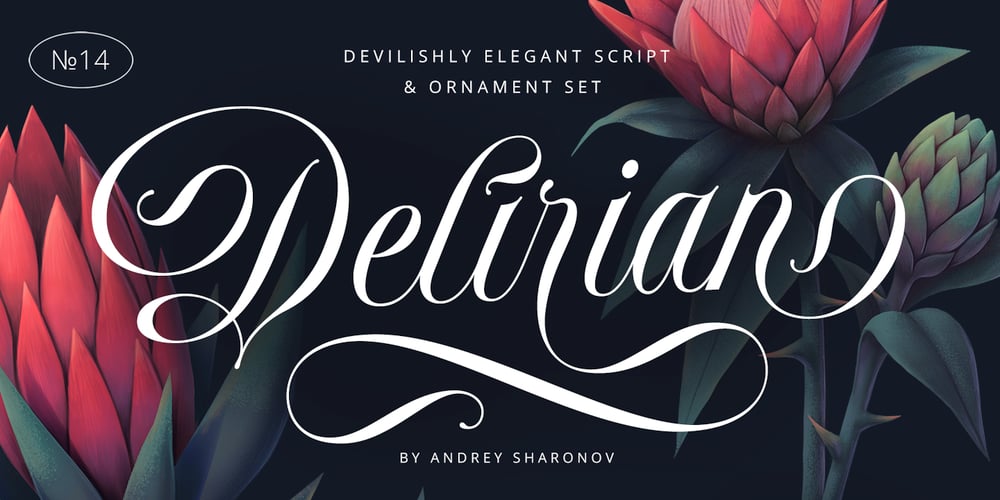
Delirian Font Family was designed by Andrey Sharonov and published by Andrey Sharonov. Delirian contains 2 styles and family package options. Delirian Script & OrnamentsDelirian is elegant script with contemporary mood and perfect forms, inspired by immortal classic calligraphy. Not too thin and not too thick, good balanced and variable, born for luxury and beauty. In my examples I show how this script can be used. It’s great for logotypes, branding, wedding invitations, romantic cards, alcohol labels, packaging, spelling of names and others.Delirian Script comes with beautiful Uppercase and Lowercase letters, numbers and punctuation. In addition to the main character set, there are 158 alternates characters, 36 ligatures and 10 lengths of end-swashes. You also get Ornament set of 26 elements which harmoniously complements original script.Multilingual SupportScript support Western European characters and works with following languages: English, Croatian, Danish, Dutch, Estonian, Faroese, Filipino, Finnish, French, German, Hungarian, Icelandic, Irish, Italian, Norwegian, Polish, Portuguese, Slovenian, Spanish, Swedish, Turkish.OpenTypeStylistic Alternates works on the principle of simple combinations with activated Standard Ligatures option in OpenType panel (Adobe Photoshop, Adobe Illustrator). To get alternate just add for example number 2 (two) after any letter. Every Uppercase has 1-2 variations and Lowercase about 3-4 alternate characters. For example:A2 A3 – Uppercase;a2 a3 a4 – Lowercase;a.1 a.2 – Lowercase with underline._1 _2 _3 – End-swashes Ligatures works with activated Discretionary Ligatures option in OpenType panel.This special features don’t work in Microsoft Word.